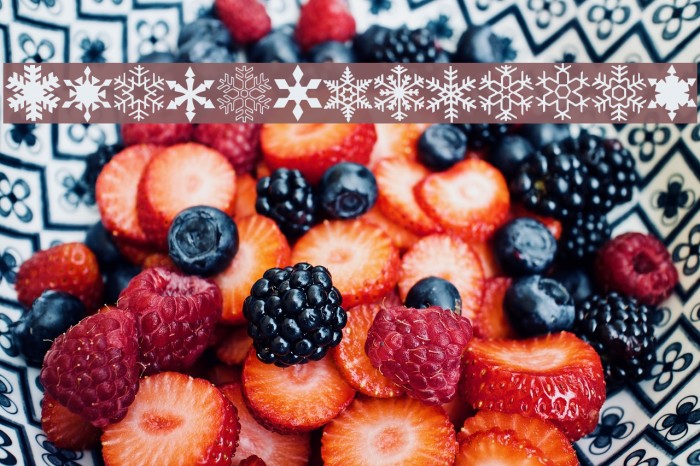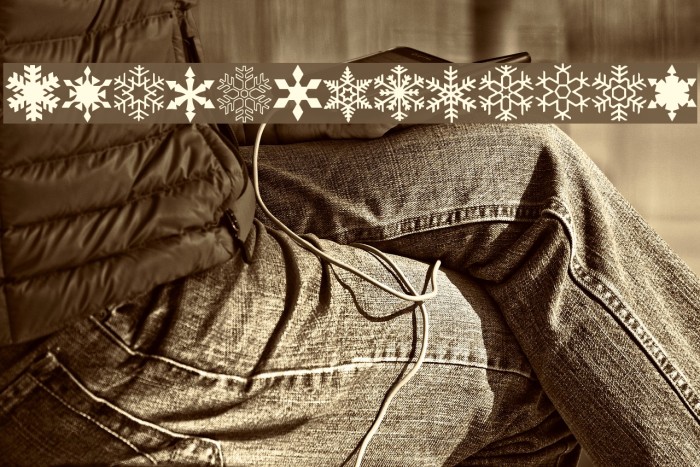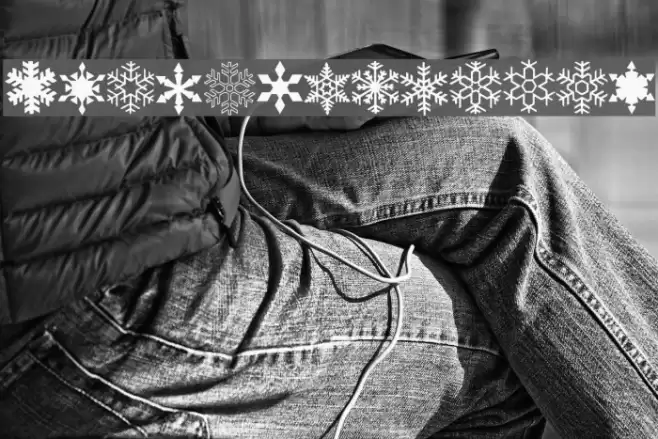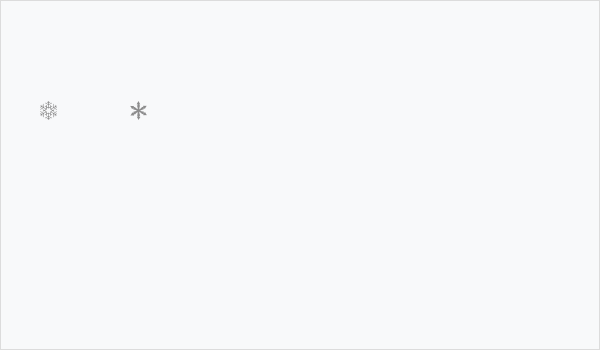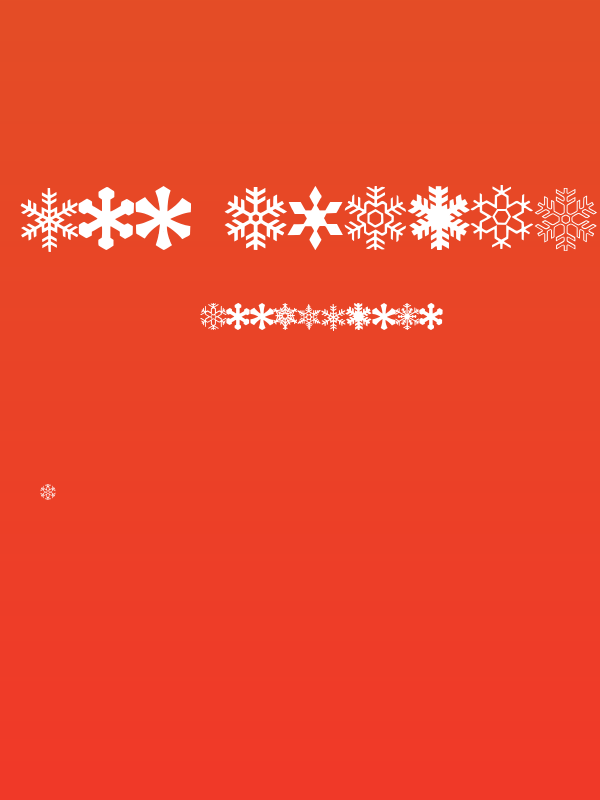
ryp_sflake6 Font
ryp_sflake6 Description
A decorative font consisting entirely of various stylized snowflake glyphs, each character representing a unique snowflake design with both solid and outlined forms, featuring intricate geometric patterns and high visual contrast.
| Overall Style | Decorative, Seasonal |
| Use Case | Borders, Decorative elements, Themed graphics |
| Proposed Projects | Holiday cards, winter-themed invitations, seasonal posters, decorative borders, digital scrapbooking. |